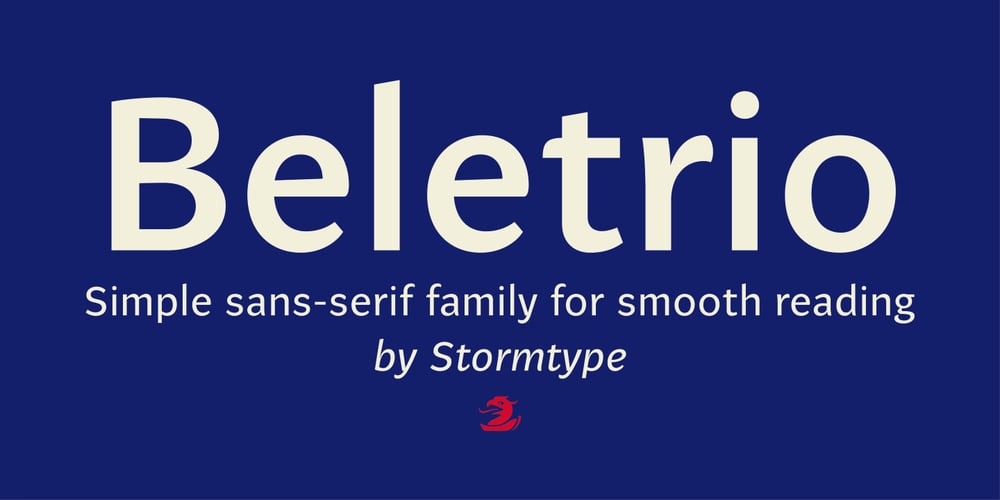
Beletrio Font Family was designed by František Štorm and published by Storm Type Foundry. Beletrio contains 21 styles and family package options. Beletrio was made as companion to Beletria, it has many shapes in common. We already have plenty of sans-serif fonts with classical proportions in the Stormtype library, such as John Sans, Sebastian or Andulka, but Beletrio is certainly the most peaceful of the bunch – it shares not only the feel of its serif originator, but its soft curves provide lovely visual caress as well. The smooth endings are not visible at first, they are balanced for easy reading as they solve some critical relations such as “rv, ry, rt”, but in larger sizes you’ll fully enjoy the picturesque details. It handles the smallest point sizes as well as large billboards, fashion magazines and philosophic tractates.